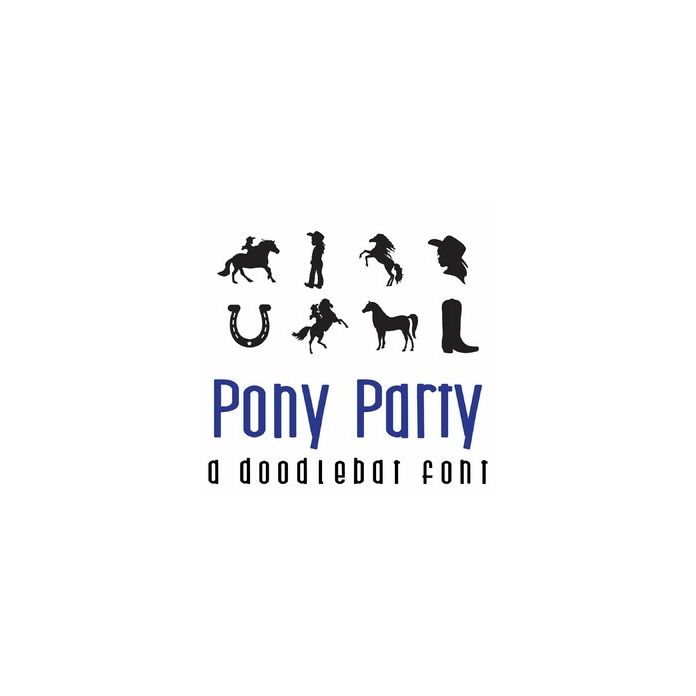
Pony Party Doodlebat Font
This fun doodlebat font features 26 horse themed silhouettes. Perfect for cards, gifts, decor, crafts, scrap book pages, planner stickers and more!